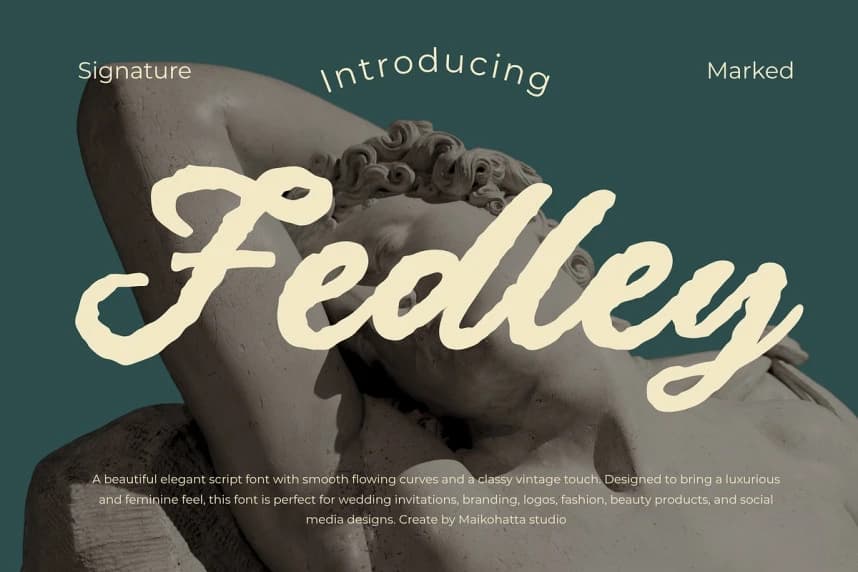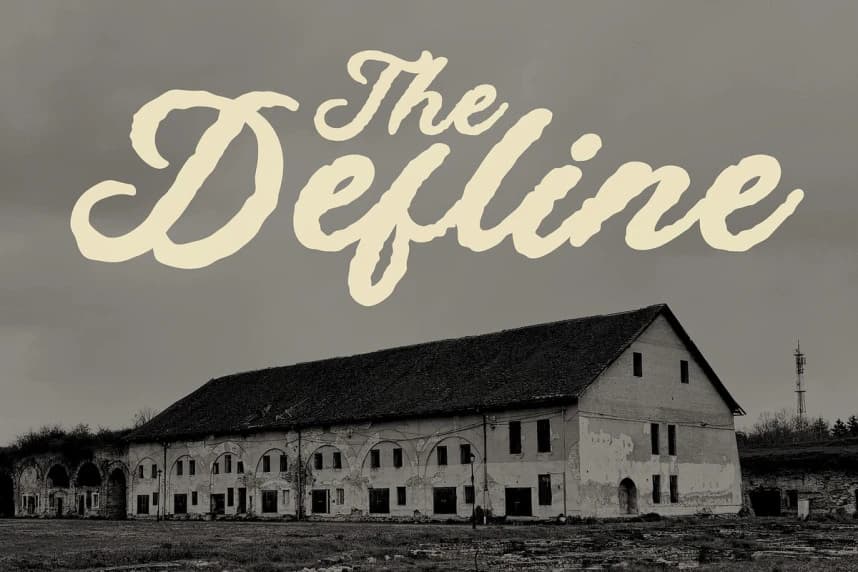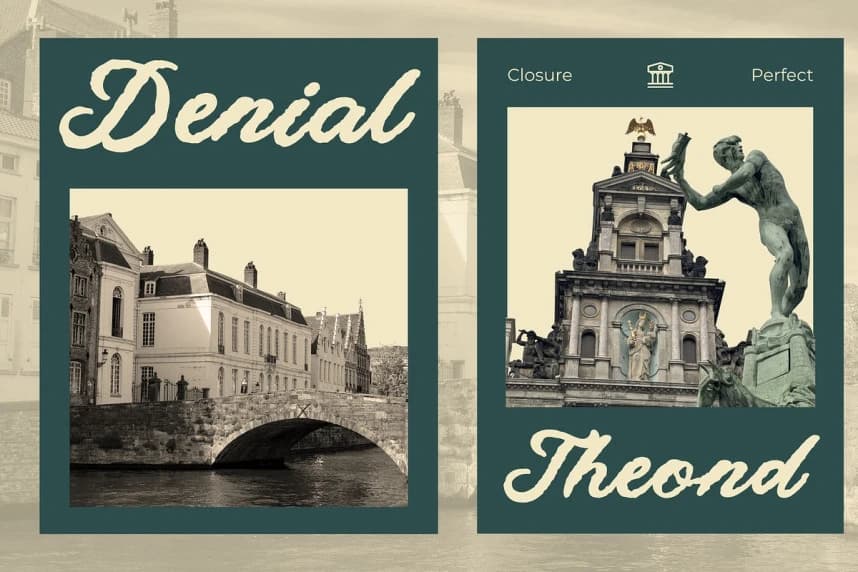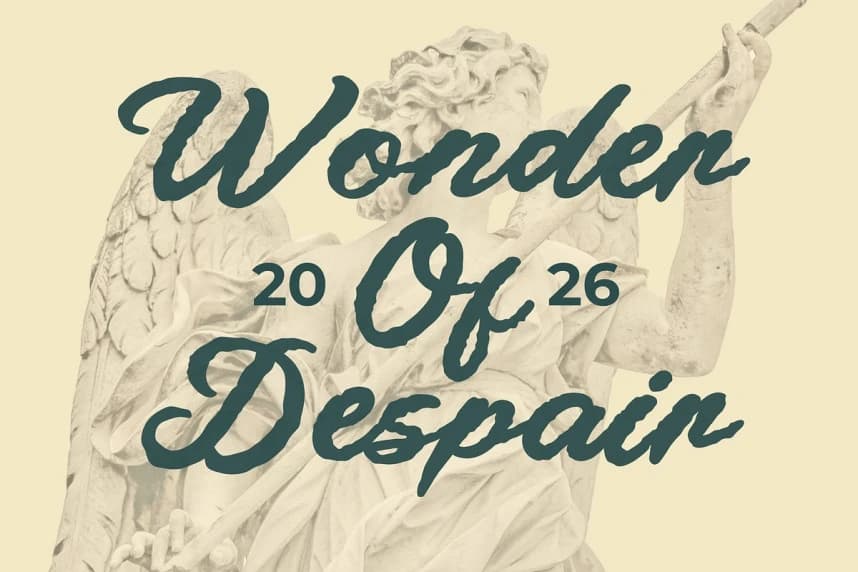
Fedley Script Font
Fedley Script Font is a modern calligraphy font that combines elegance, fluidity, and a natural handwritten feel. Designed with smooth flowing curves and stylish strokes, this font brings a sophisticated and luxurious touch to any design project.